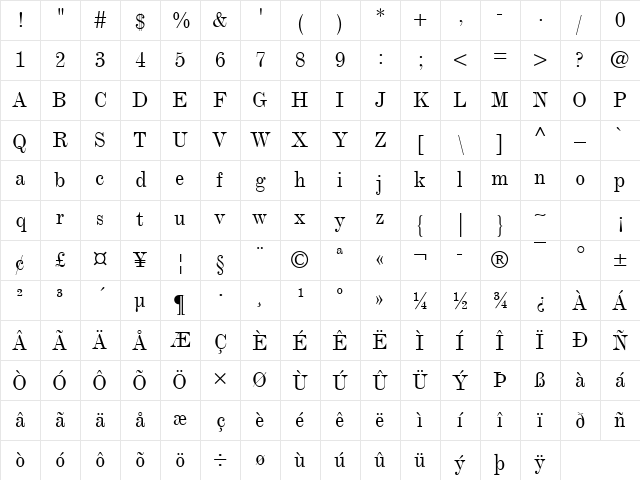
ModernMT Condensed Regular
Foundry: Agfa Monotype Corporation
Design Context for ModernMT Condensed
ModernMT Condensed is a composed and adaptable typeface that performs quietly and consistently across a wide range of design contexts. Its narrow stance lets it pack a punch even in space-constrained designs.
Pro Tip: Use ModernMT Condensed in both headline and body roles to test its range before committing to a single application.